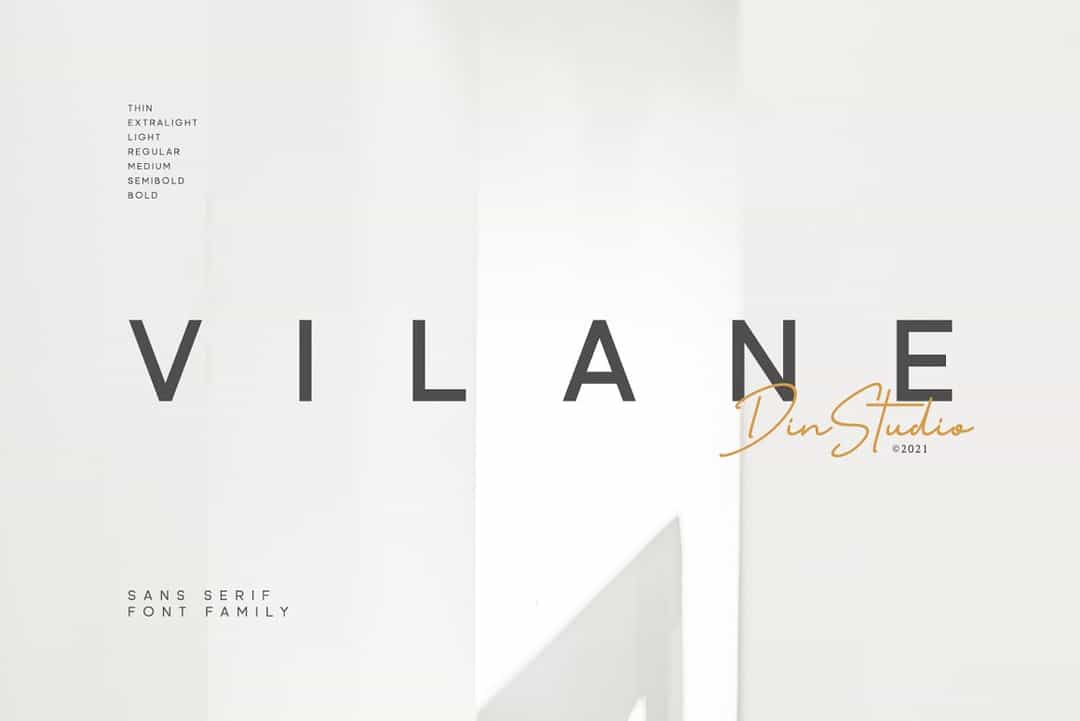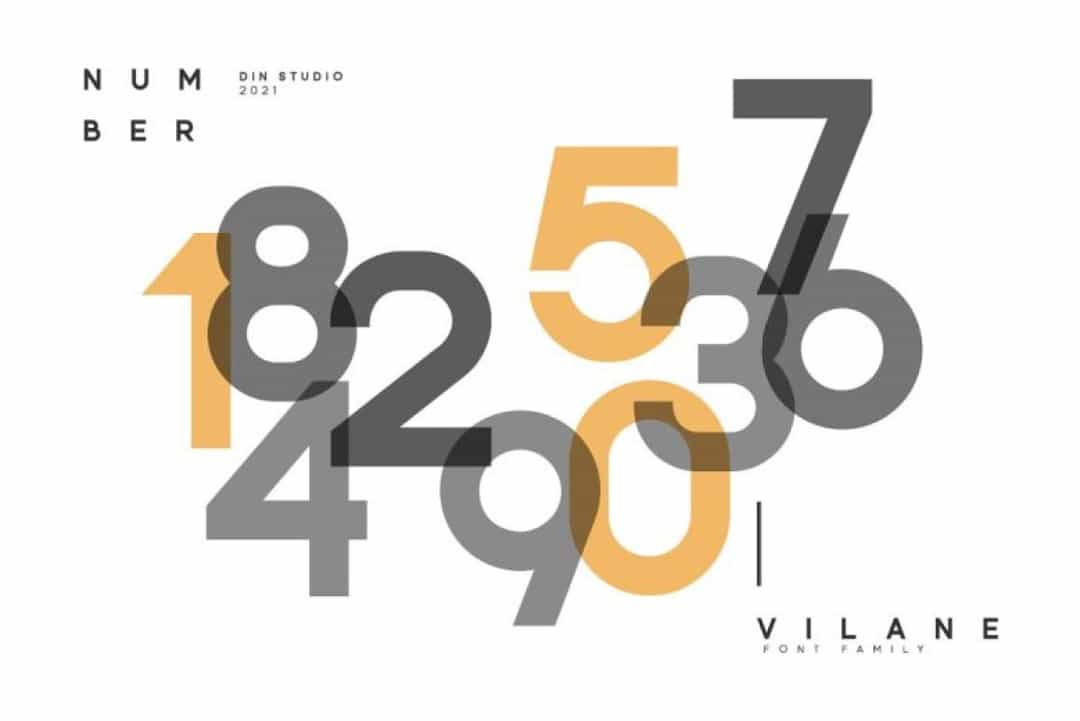
Discover Vilane Font, part of the Sans Serif collection—a versatile and unique font perfect for adding a personal touch to your projects. Download it for free and enjoy crafting designs with style, from invitations to social media posts. This font is available exclusively for personal use, giving you the freedom to create without limits. Unlock your creativity with Vilane Font today!
Vilane Sans Serif Font is sure to delight. With this family of fonts, you’ll have many ways of engaging and delighting your customers and audience – plus these fonts meet any number of projects and content requirements!